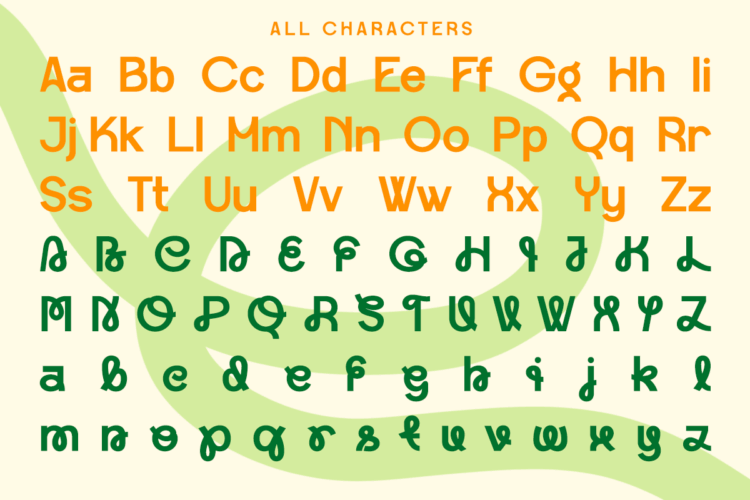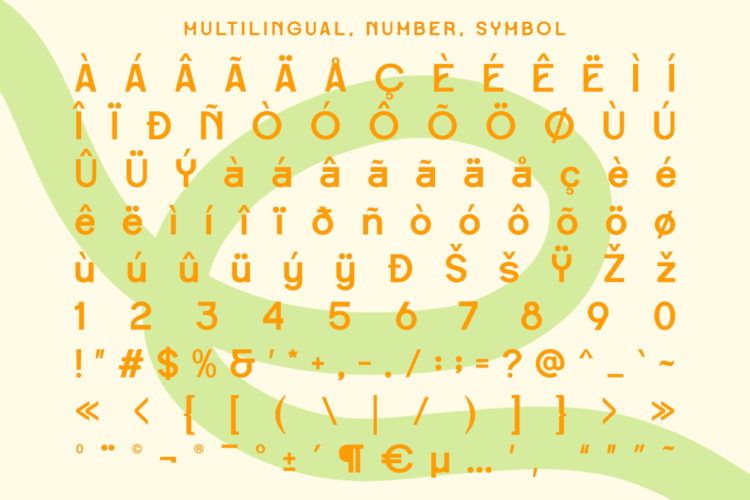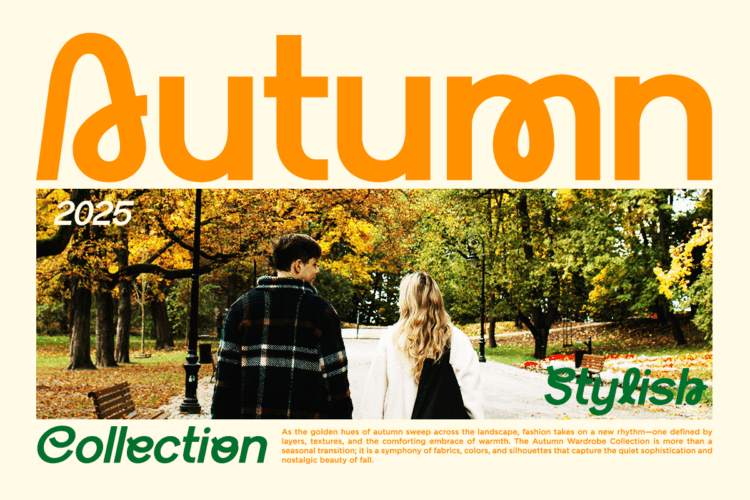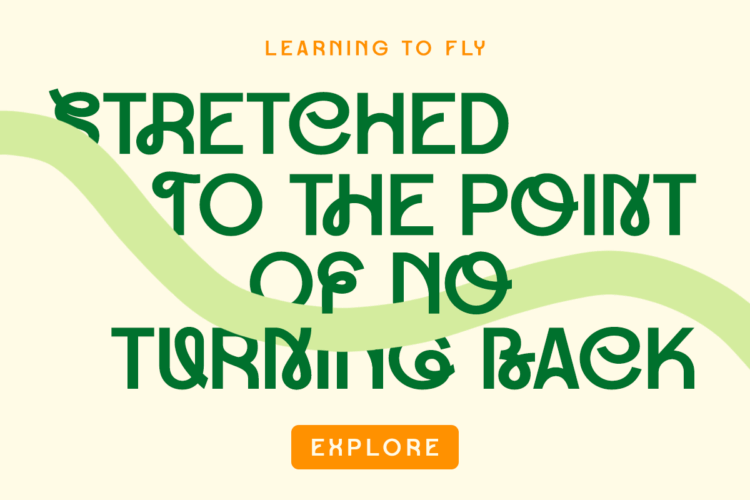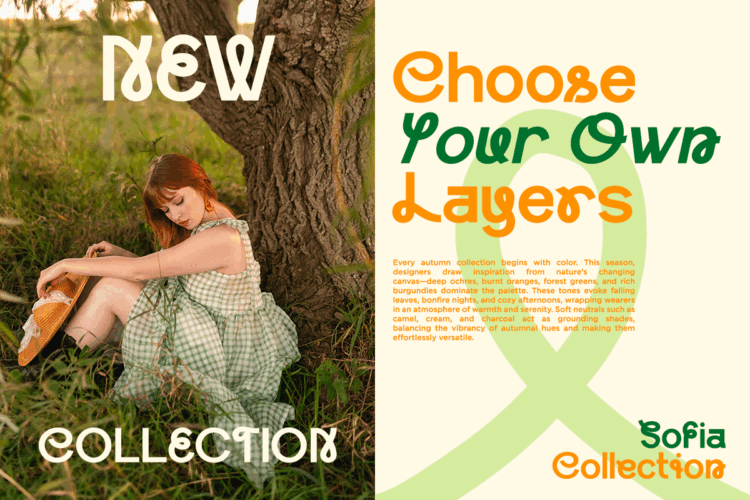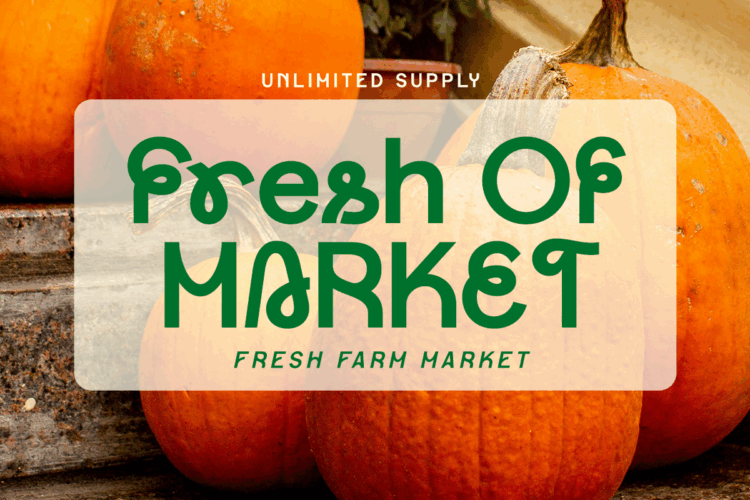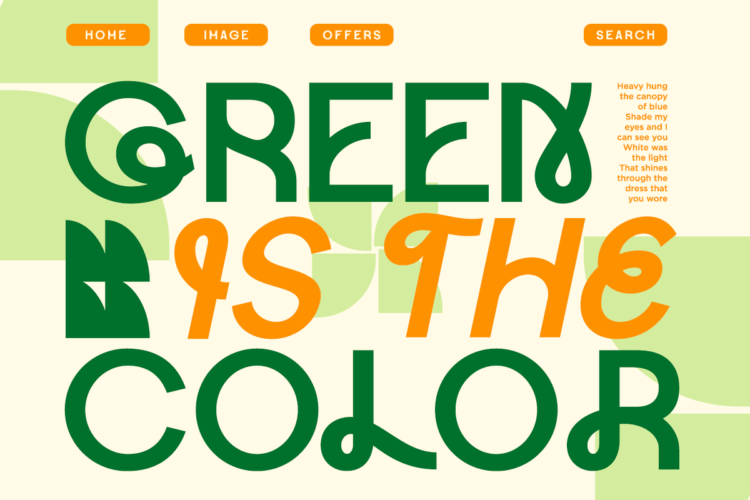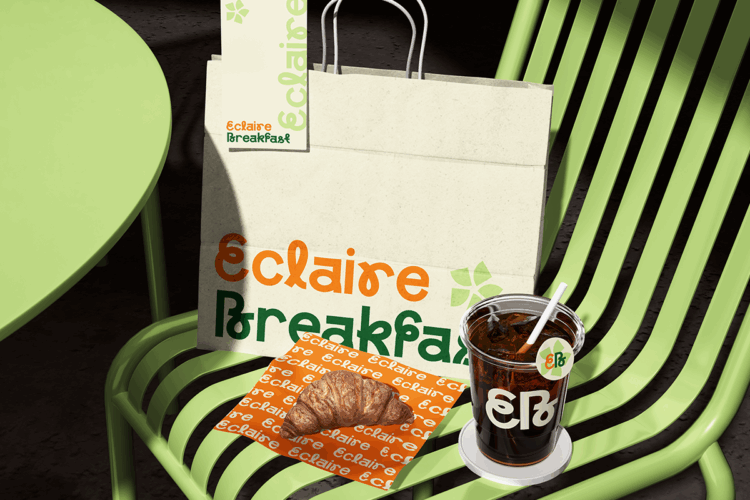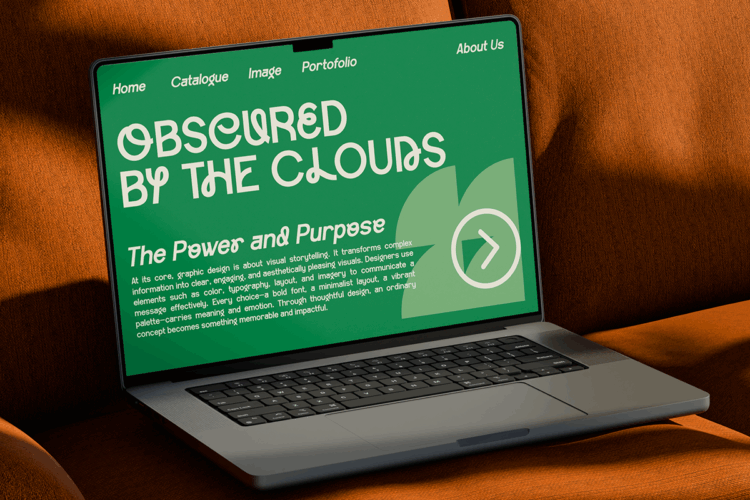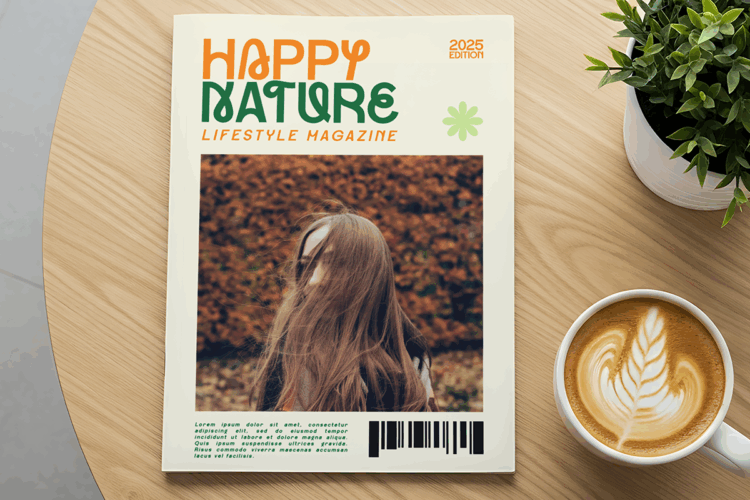
Wapilor – Experimental Sans Font
Wapilor is an experimental and distinctive font featuring elegant curves and a modern visual aesthetic. Designed to make your projects stand out, Wapilor brings a stunning and captivating look to any design.
It’s the ideal choice for all kinds of creative work—whether you’re crafting logos, advertisements, photo watermarks, stationery, branding materials, magazine layouts, invitations, corporate identities, product packaging, labels, or business projects. Whenever your design calls for a touch of sophistication, Wapilor delivers with style.
– Uppercase & Lowercase Alternates